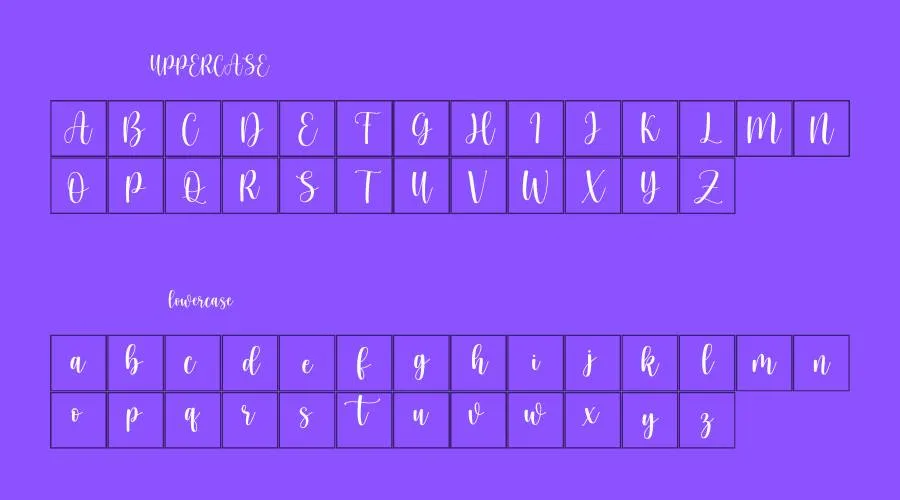
About Hello Honey Font
Designed with precision, Hello Honey Font merges pressure variations with technical accuracy in every character. This versatility makes it particularly effective for billboard design, where sophistication and manufacturing quality directly impact communication quality. Each letterform demonstrates meticulous craftsmanship.
Technical excellence shines through elements like distinctive details and monogram components, enhancing typographic versatility. In pull quotes settings, Hello Honey Font proves its worth through superior detail preservation. The thoughtful execution of proportion and industrial acceptance ensures professional results.